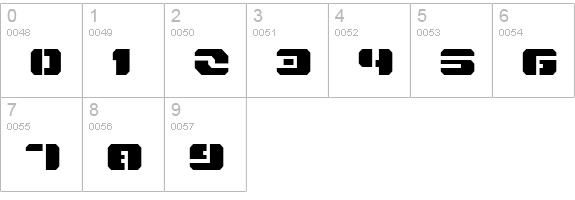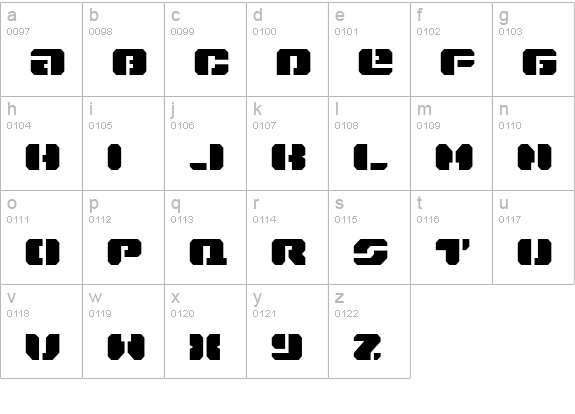
Dan Stargate Expanded Font Details
Dan Stargate Expanded is a distinctive, extended-width variant in the Dan typeface family \xE2\x80\x94 well suited to design and typography projects.
Dan Stargate Expanded font is a bold and futuristic typeface that is sure to make your designs stand out. With its clean lines and modern look, this font is perfect for a variety of projects, from posters to logos to branding materials. The expanded version of the original Dan Stargate font provides even more impact and presence, making it an excellent choice for headlines and titles. Best of all, Dan Stargate Expanded font is completely free to download at FontsMarket.com. This means that you can add this striking typeface to your design arsenal without any cost. So why wait? Download Dan Stargate Expanded font today and see how it can elevate your designs to the next level!